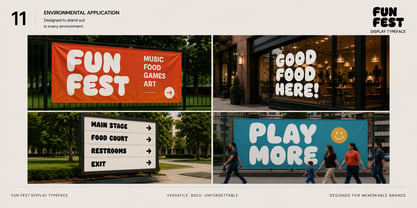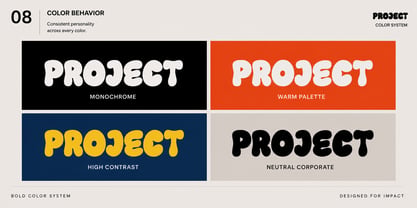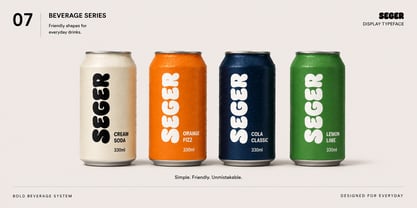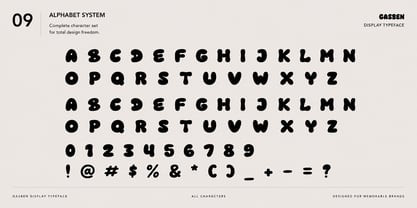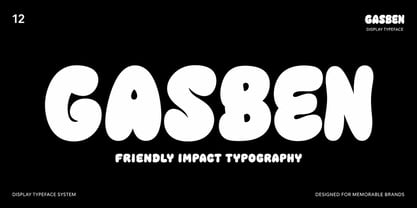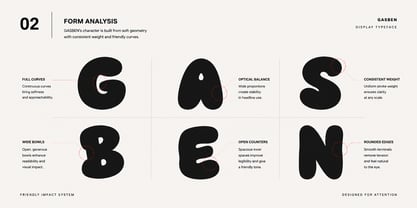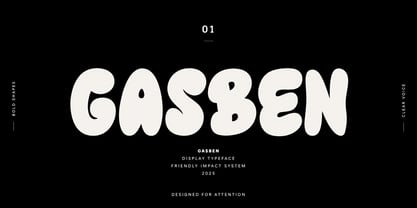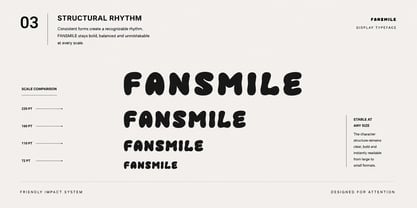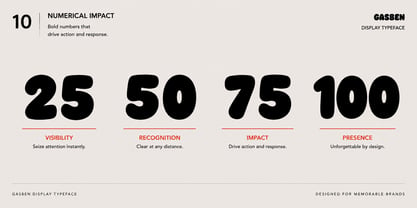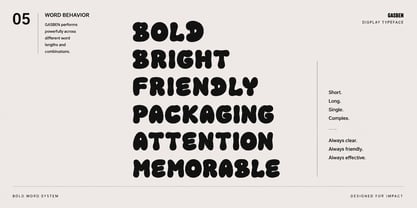
Gasben
La familia tipográfica Gasben fue diseñada por Jony Suharsono y publicada por Solutype. Gasben contiene 1 estilos. Más información sobre esta familia
GASBEN is a bold display typeface built to capture attention instantly.
With its soft, chunky letterforms, playful curves, and highly recognizable silhouette, GASBEN brings a friendly and energetic personality to any design. Every character is crafted with a unique organic rhythm that feels approachable, memorable, and full of character while remaining highly legible at large sizes.
Designed for brands that want to stand out without feeling aggressive, GASBEN combines visual impact with warmth, making it ideal for modern packaging, food branding, children's products, event graphics, social media campaigns, posters, merchandise, and advertising.
Its oversized shapes create strong word recognition, helping headlines and brand names remain clear even from a distance. Whether used on packaging shelves, storefront signage, promotional materials, or digital content, GASBEN delivers instant visual presence and lasting memorability.
Perfect For
• Food & Beverage Packaging
• Snack Brands
• Children's Products
• Toy Packaging
• Festival & Event Branding
• Posters & Advertising
• Social Media Graphics
• Merchandising
• Retail Signage
• Logo Design
• Brand Identity Systems
• Display Headlines
Features
• Uppercase Characters
• Numerals & Punctuation
• Multilingual Support (if applicable)
• High Visual Recognition
• Playful Rounded Forms
• Strong Display Performance
• Easy-to-Read Large Headlines
Personality
Bold. Friendly. Memorable.
GASBEN is made for brands that want to be seen, remembered, and loved.